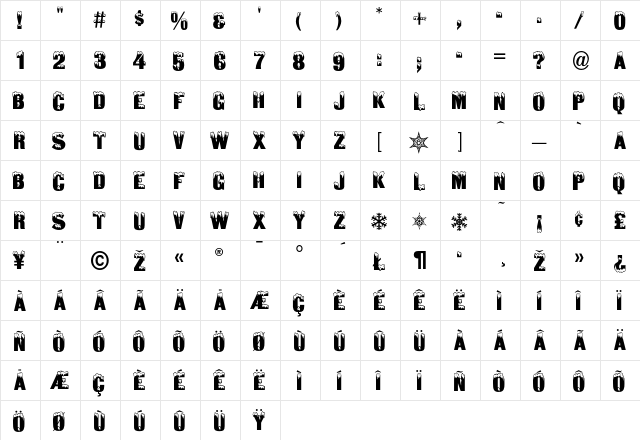
IglooSolid Normal
Design Context for IglooSolid Typeface
IglooSolid is a composed and adaptable typeface that performs quietly and consistently across a wide range of design contexts.